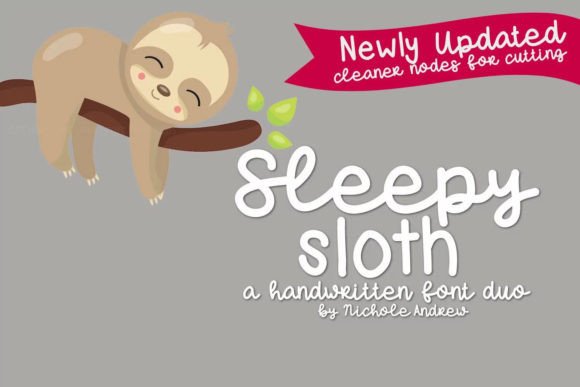
Step into the captivating world of Sleepy Sloth Duo Font, a captivating handwritten font duo that breathes life into your creative vision. This enchanting font pairing combines a playful print font with an elegant script font, offering endless possibilities to make your designs stand out. Immerse yourself in the beauty of Sleepy Sloth, a font family that evokes warmth, charm, and a touch of whimsy.
With Sleepy Sloth, you can effortlessly create heartfelt cards that express your emotions with heartfelt elegance. Adorn your gift bags with personalized messages that add a unique touch to your presents. Transform plain water bottles into stylish accessories by adding motivational quotes or playful designs using Sleepy Sloth's versatile characters. Unleash your creativity and design stunning notebooks that inspire and uplift with every page. Craft eye-catching stickers that add a pop of charm to your belongings.
Sleepy Sloth is more than just a font; it's an artistic expression that captures the essence of handwritten letters. Its charming print font exudes a sense of playfulness, while the graceful script font adds a touch of sophistication. Together, they create a harmonious balance that elevates your designs to new heights. Whether you're creating digital content or physical products, Sleepy Sloth seamlessly blends the beauty of handwritten notes with the convenience of digital design.
Whether you're a seasoned designer or just starting your creative journey, Sleepy Sloth is the perfect companion for your projects. Its user-friendly nature makes it accessible to all skill levels, while its versatility allows you to explore a wide range of creative possibilities. Embrace the charm of Sleepy Sloth and let your imagination soar.